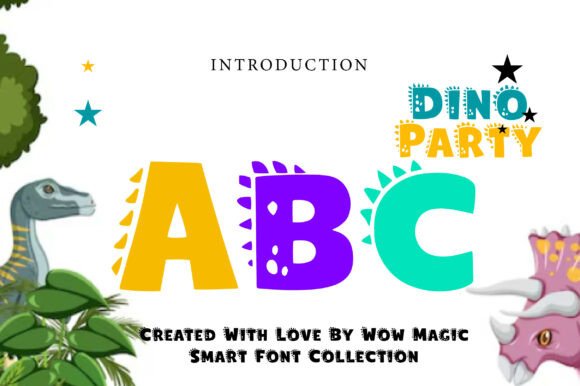
Dino Party Font: Unleash the Fun and Playfulness in Your Designs
Are you looking for a font that can add a dash of fun and playfulness to your designs? Look no further than the Dino Party Font! Inspired by dinosaurs, party themes, and cheerful kids’ design, this font is perfect for creating exciting and memorable projects. In this article, we’ll dive into the features and benefits of the Dino Party Font and explore how it can elevate your designs.
What is Dino Party Font?
Dino Party Font is a fun and playful display font that is sure to bring a lively prehistoric personality to any project. With its bold chunky letterforms, rounded edges, and decorative spike details, this font is perfect for designers who want to add a creative twist to their work. The unique dino-inspired elements make it stand out from other fonts, while keeping it readable and bold.
Key Features of Dino Party Font
- Bold Chunky Letterforms: The font features bold and chunky letterforms that make it perfect for headlines and titles.
- Rounded Edges: The rounded edges give the font a soft and playful feel, making it ideal for kids-focused projects.
- Decorative Spike Details: The decorative spike details add a touch of whimsy and fun to the font, making it perfect for party themes and dinosaur-inspired designs.
- Readability: Despite its bold and playful design, the font remains highly readable, making it perfect for use in a variety of projects.
Use Cases for Dino Party Font
Dino Party Font is a versatile font that can be used in a variety of projects, including:
- Birthday Invitations: The font’s playful and fun design makes it perfect for creating eye-catching birthday invitations.
- Kids Branding: The font’s bold and chunky design makes it ideal for kids-focused branding, such as logos and packaging.
- Party Decorations: The font’s decorative spike details and rounded edges make it perfect for creating fun and playful party decorations.
- Posters: The font’s bold design makes it perfect for creating eye-catching posters for kids-focused events.
- Toy Packaging: The font’s playful design makes it ideal for toy packaging that needs to stand out on store shelves.
- Classroom Materials: The font’s bold and readable design makes it perfect for creating engaging classroom materials, such as worksheets and activity sheets.
- Social Media Graphics: The font’s fun and playful design makes it perfect for creating engaging social media graphics for kids-focused brands.
- Playful Headline Designs: The font’s bold and chunky design makes it perfect for creating playful headline designs for kids-focused websites and blogs.
Why Choose Dino Party Font?
So why choose Dino Party Font for your next project? Here are just a few reasons:
- Unique Design: The font’s unique dino-inspired design sets it apart from other fonts, making it perfect for designers who want to add a creative twist to their work.
- Playful and Fun: The font’s playful and fun design makes it perfect for kids-focused projects that need to be engaging and memorable.
- Readability: Despite its bold and playful design, the font remains highly readable, making it perfect for use in a variety of projects.
- Versatility: The font’s versatility makes it perfect for use in a wide range of projects, from birthday invitations to social media graphics.
In conclusion, the Dino Party Font is a fun and playful display font that is perfect for designers who want to add a dash of fun and playfulness to their designs. With its bold chunky letterforms, rounded edges, and decorative spike details, this font is sure to bring a lively prehistoric personality to any project. Whether you’re creating a dinosaur-themed event design or playful branding, this font adds a joyful and eye-catching character to every word.